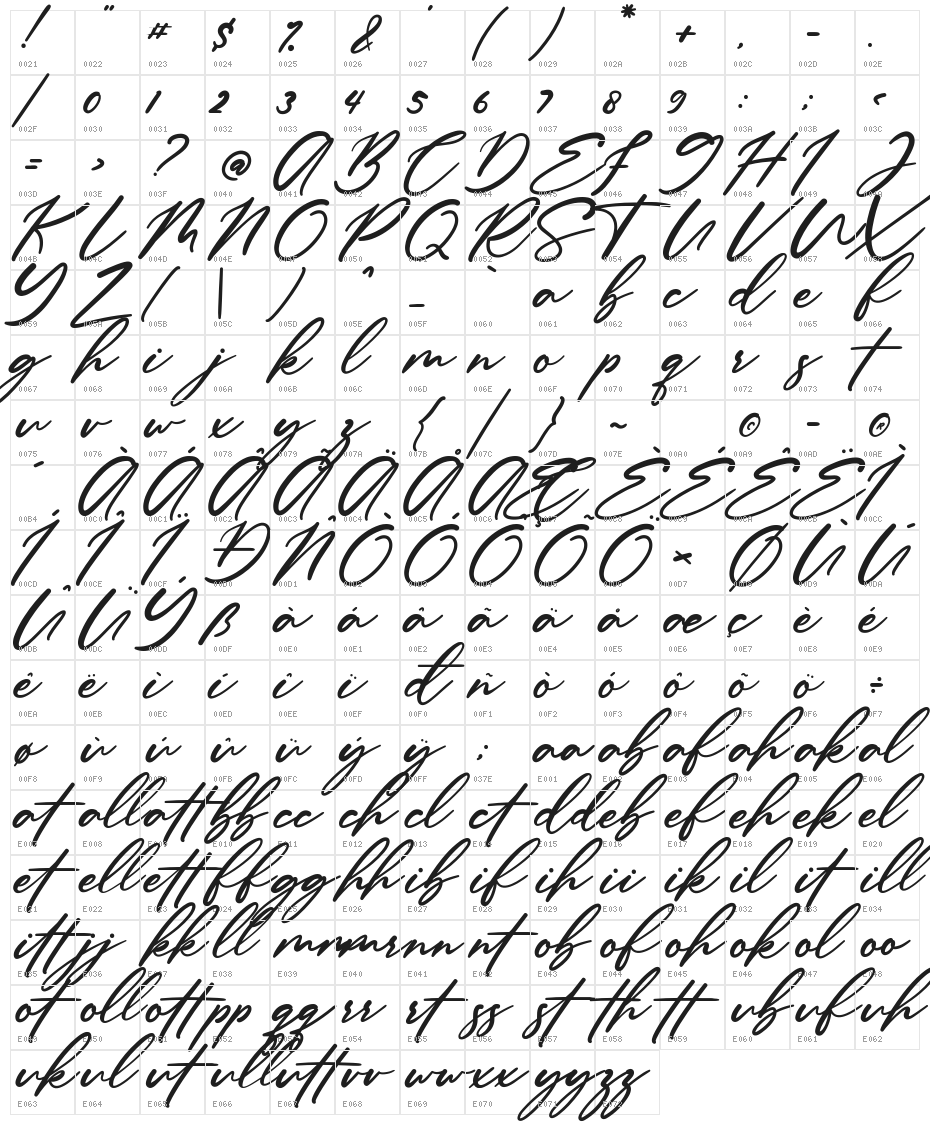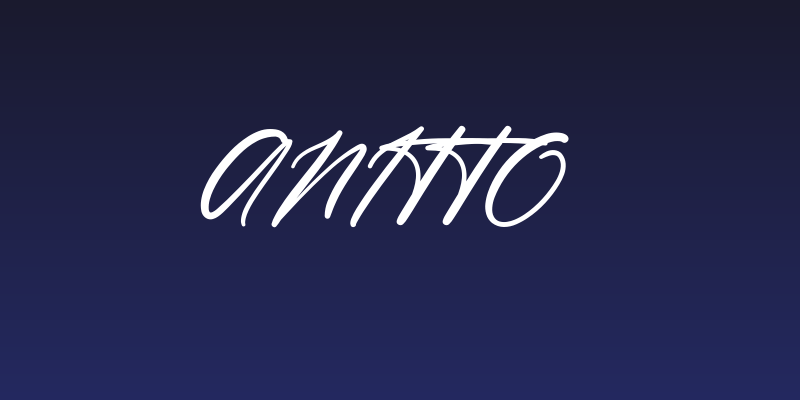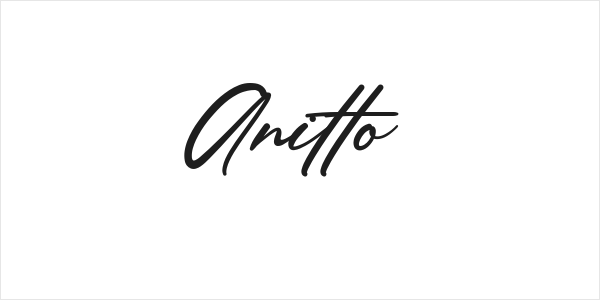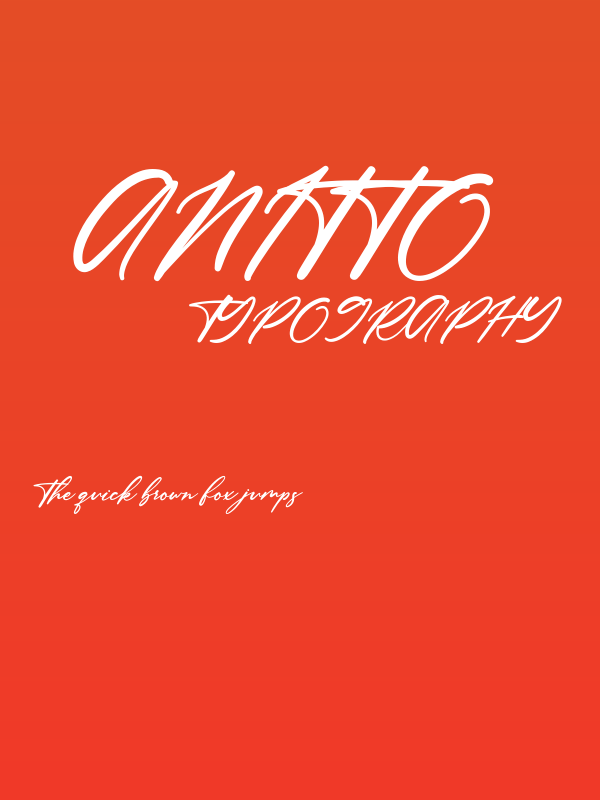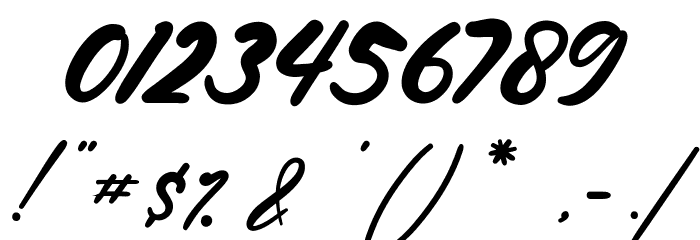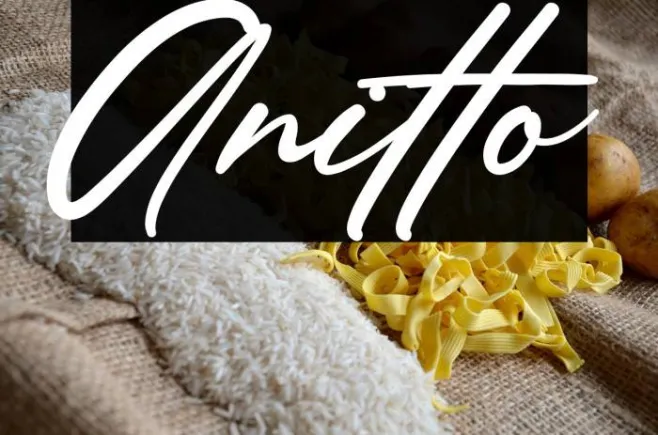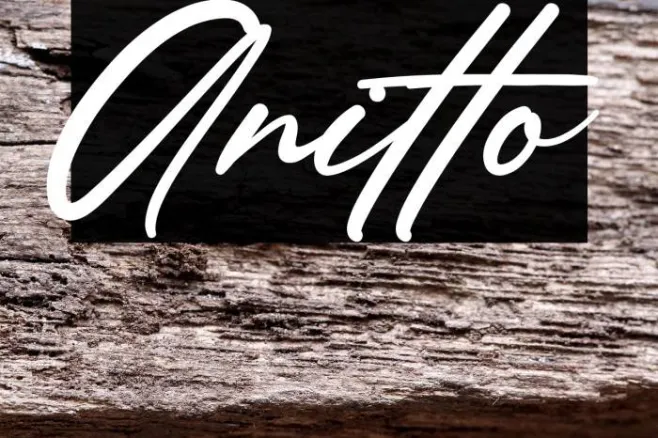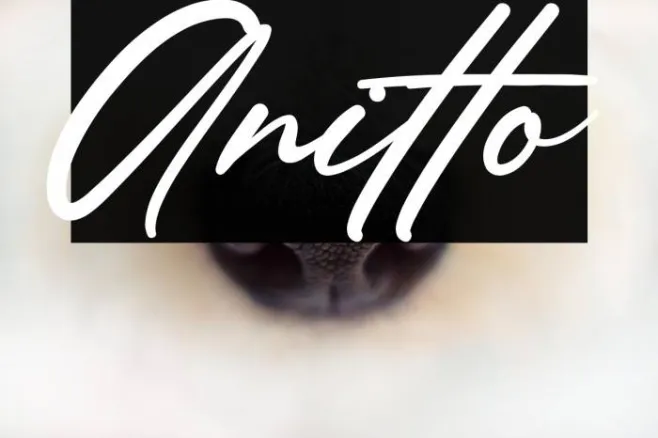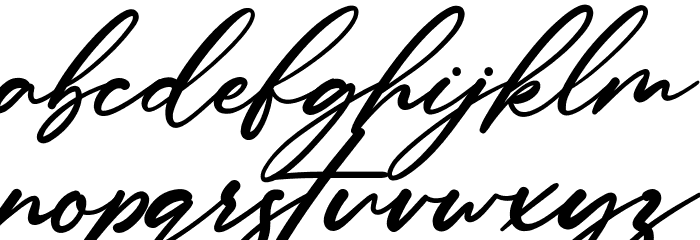
Anitto Font
Anitto Description
This font features a dynamic and fluid script style, characterized by its elegant, flowing strokes and a sense of movement. The uppercase letters are slightly slanted, with a consistent stroke width that gives a cohesive appearance. The lowercase letters are more pronounced in their curves, adding a touch of sophistication and flair. Numbers are bold and clear, maintaining the script's overall aesthetic. Special characters are seamlessly integrated, enhancing the font's versatility. This font exudes a sense of elegance and creativity, making it suitable for various artistic and formal applications.
ANITTO UPPERCASE
ANITTO LOWERCASE
ANITTO OTHER CHARS
| Overall Style | Elegant, Creative |
| Proposed Projects | Ideal for wedding invitations, branding projects, greeting cards, and elegant logos. |